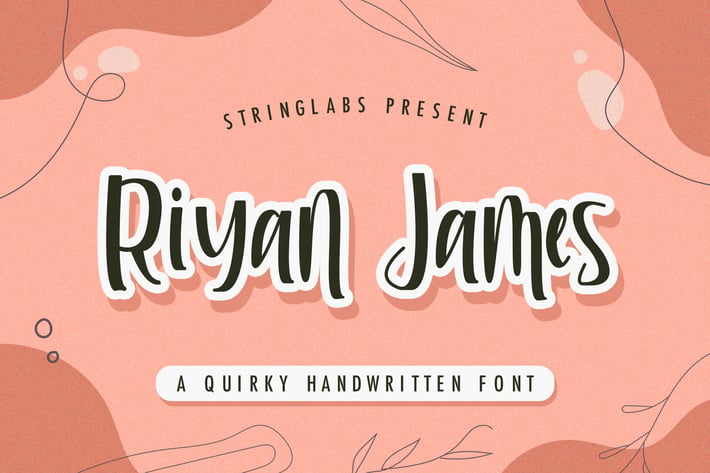
Riyan James - Quirky Display Font
Introducing Riyan James - Quirky Display Font
Riyan James is a flowing handwritten and quirky display font, described by an elegant touch, perfect for your favorite projects. Fall in love with its incredibly distinct and timeless style and use it to create spectacular designs!